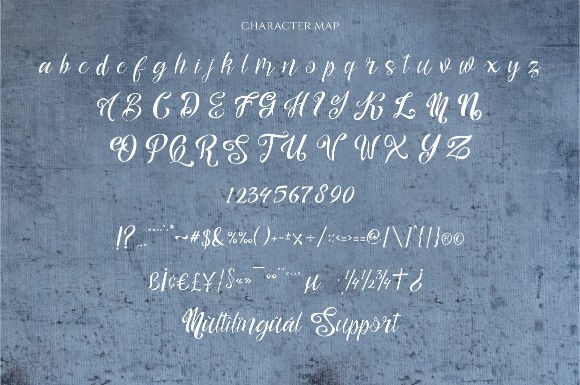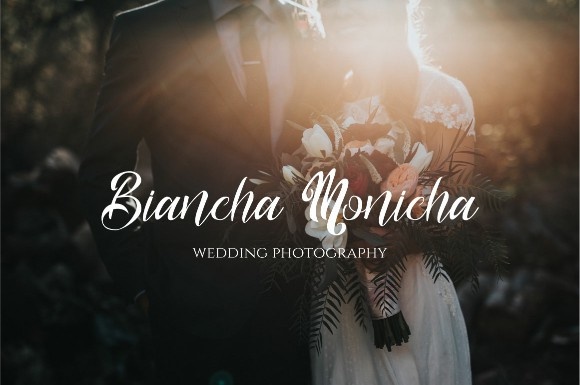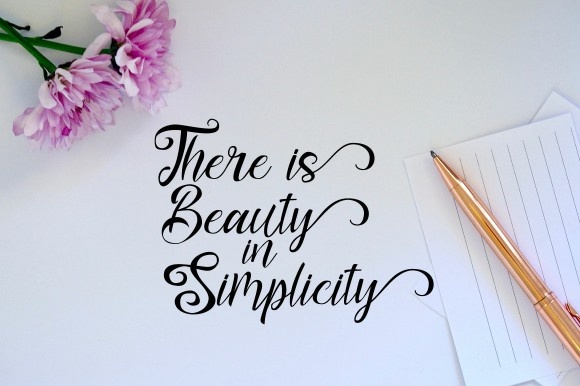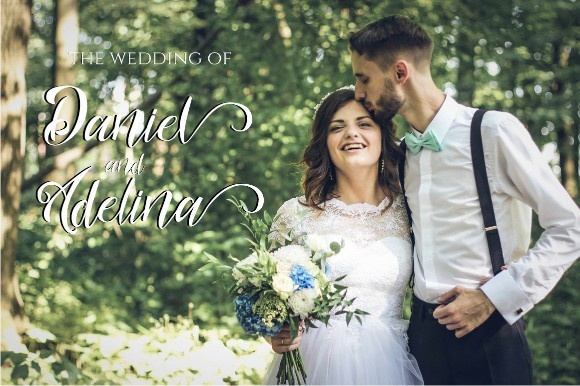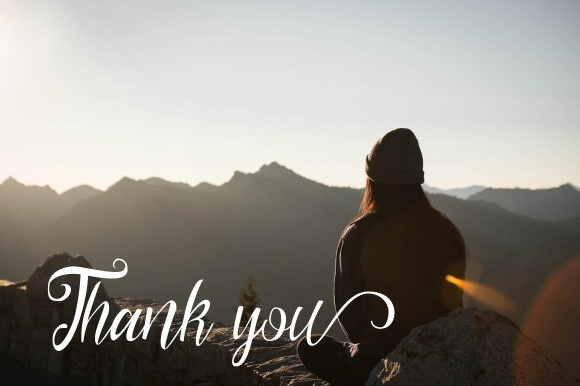
Introduction to Nalicha Script Font
The Nalicha is a modern script font.
It has a handmade calligraphy style and was sketched with love to add some passion to your designs It’s beautiful on invitations, greeting cards, branding materials, business cards, quotes, posters, and more.